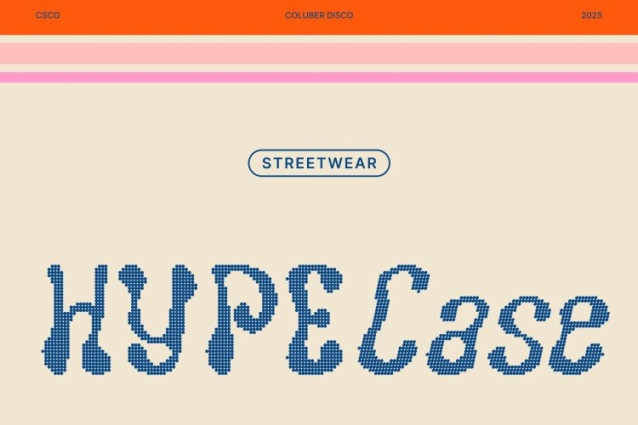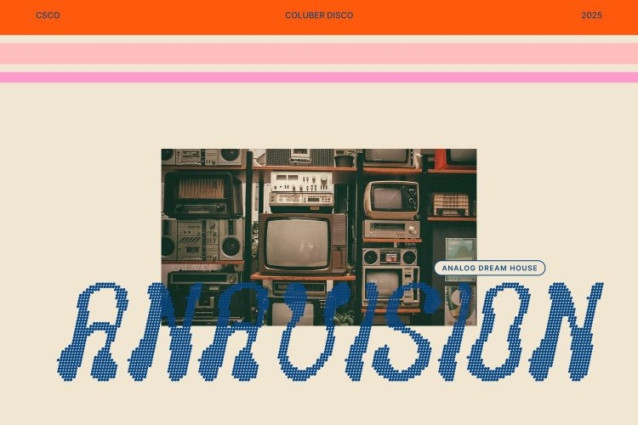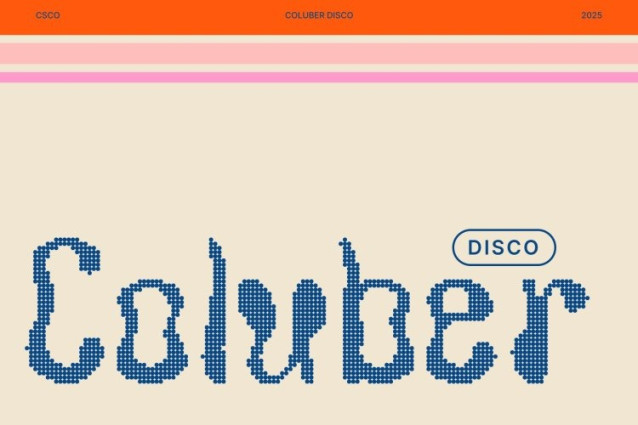
Coluber Disco Font
Coluber Disco Font is a bold display font inspired by the psychedelic posters of the 1970s. With its flowing curves, groovy letterforms, and vibrant rhythm, this font captures the free-spirited energy of the disco era. Each letter feels alive with movement, creating an expressive visual beat that instantly commands attention.
Retro Vibe with a Modern Sparkle
Blending nostalgia with modern flair, this font brings the past into the present. Its funky shapes and dynamic flow recall the creative freedom of vintage art while remaining crisp and versatile for today’s design trends. A subtle disco shimmer adds a radiant touch, making every composition glow with retro charm and modern excitement.
Perfect for Music, Art, and Cultural Designs
This font shines brightest in designs that celebrate creativity and movement. Ideal for music event posters, art exhibition graphics, and expressive branding, this font infuses every layout with personality and energy. It turns simple text into a visual performance that feels rhythmic, colorful, and full of life.
Expressive and Bold for Modern Creators
Whether used for bold headlines, funky packaging, or artistic campaigns, this font brings a sense of motion and joy to every project. It’s a typeface that doesn’t just sit on the page it dances. Bring your designs to life with this font, where retro spirit meets modern creativity in perfect harmony.